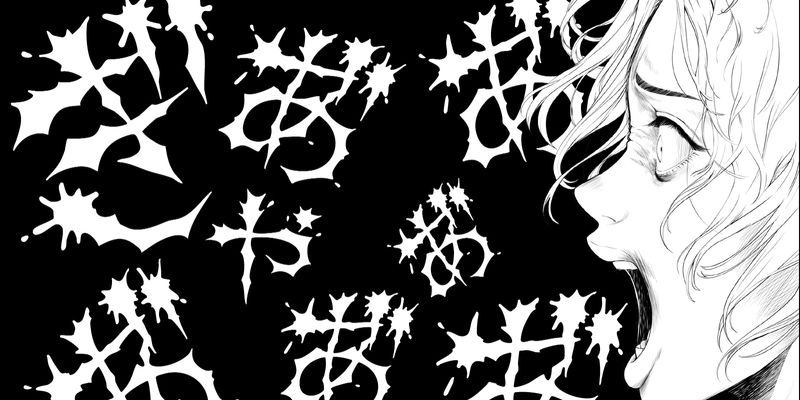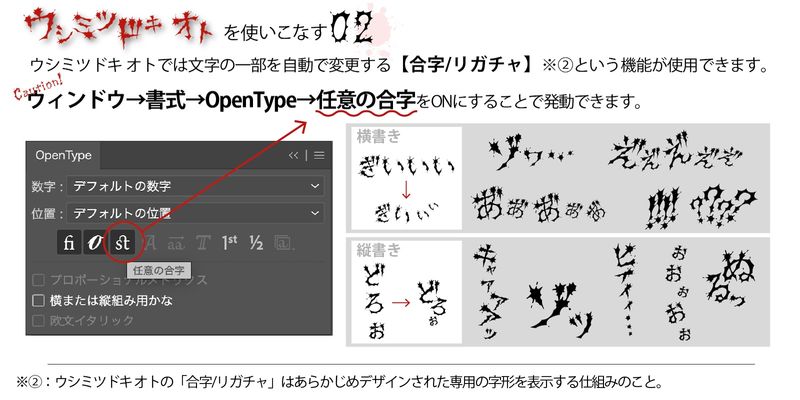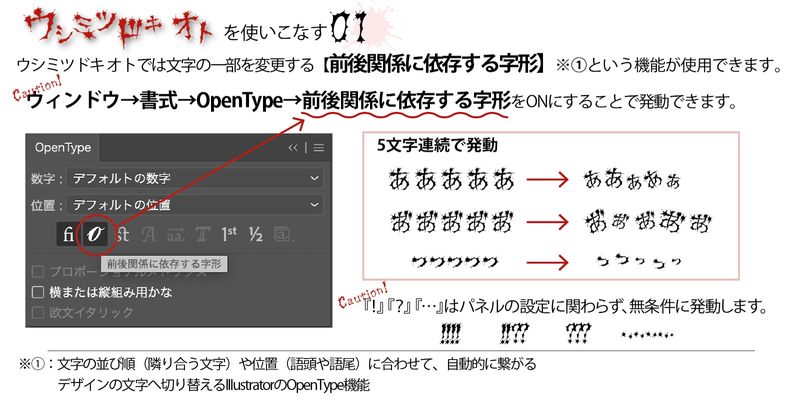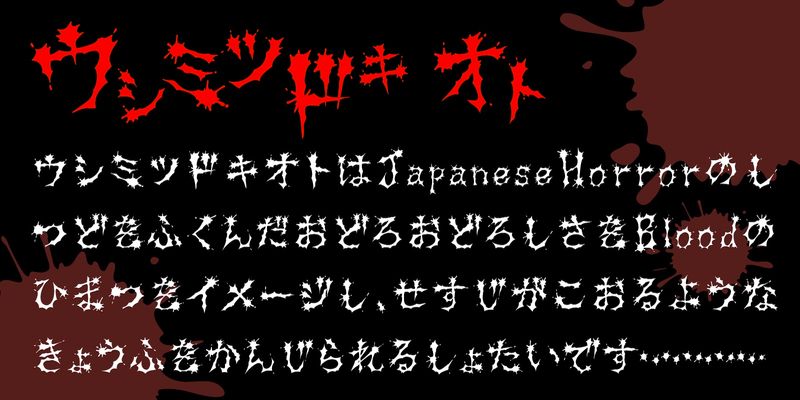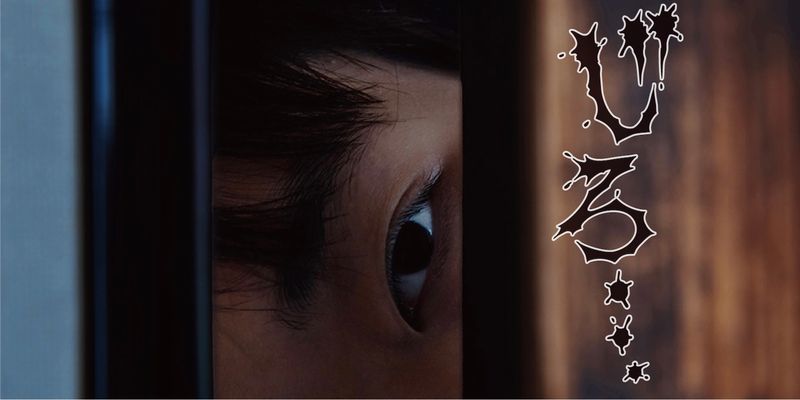
Ushimitsu Doki Oto is a typeface that expresses spine-chilling horror, evoking the humidity and blood splatter of Japanese horror. Using the OpenType panel’s “contextual alternates” and “discretionary ligatures,” certain characters can transform into special designs.